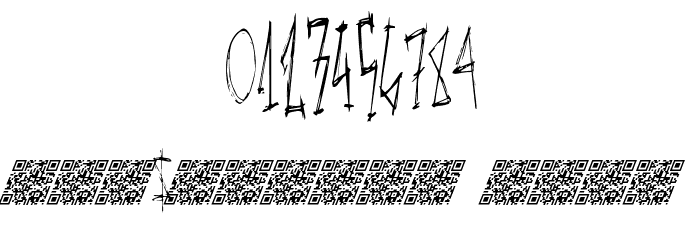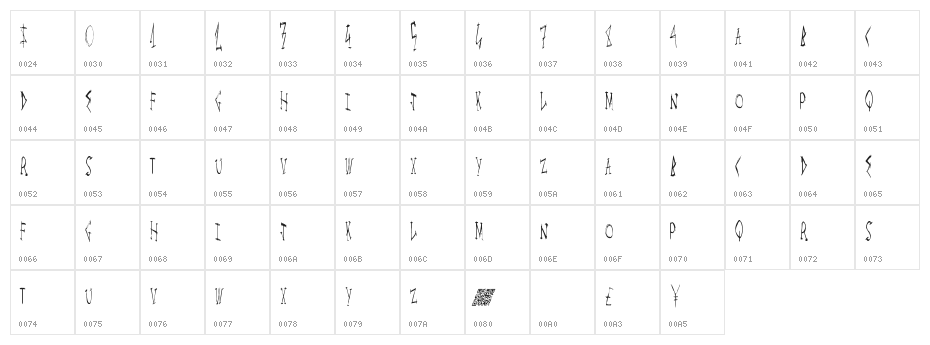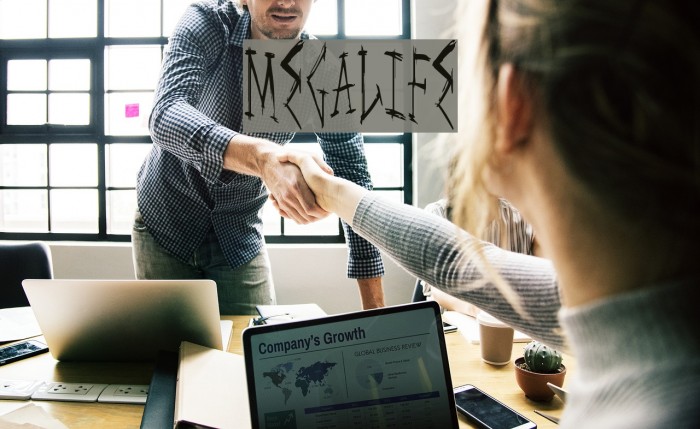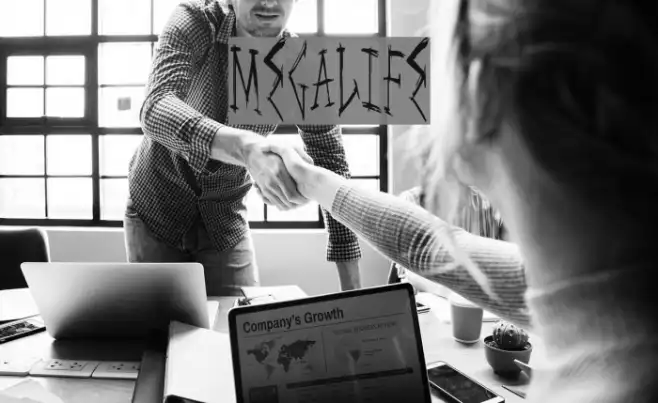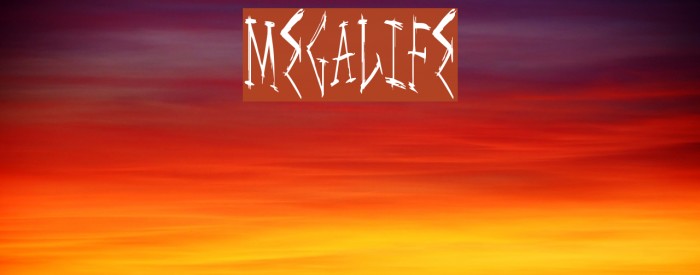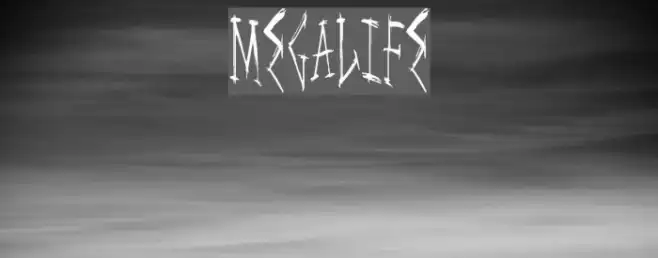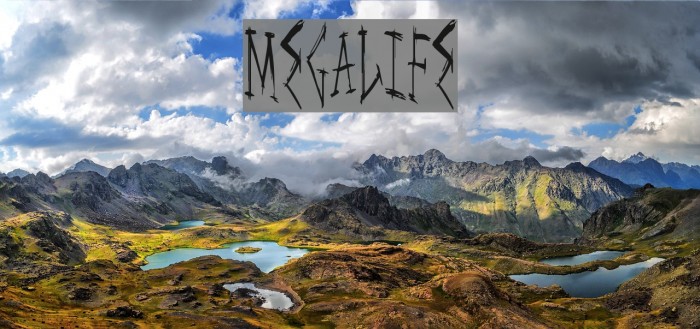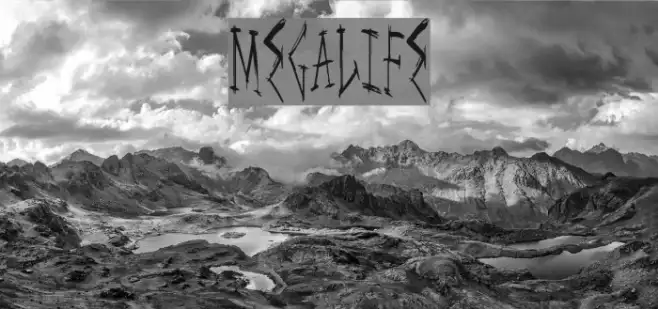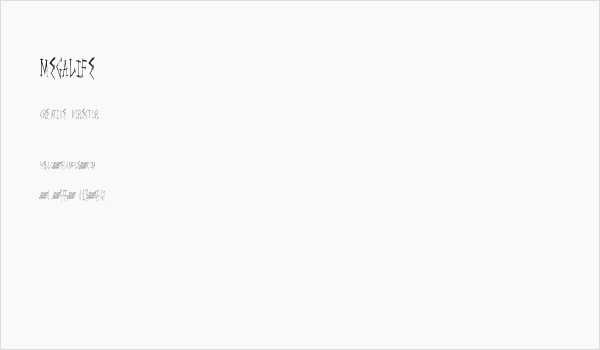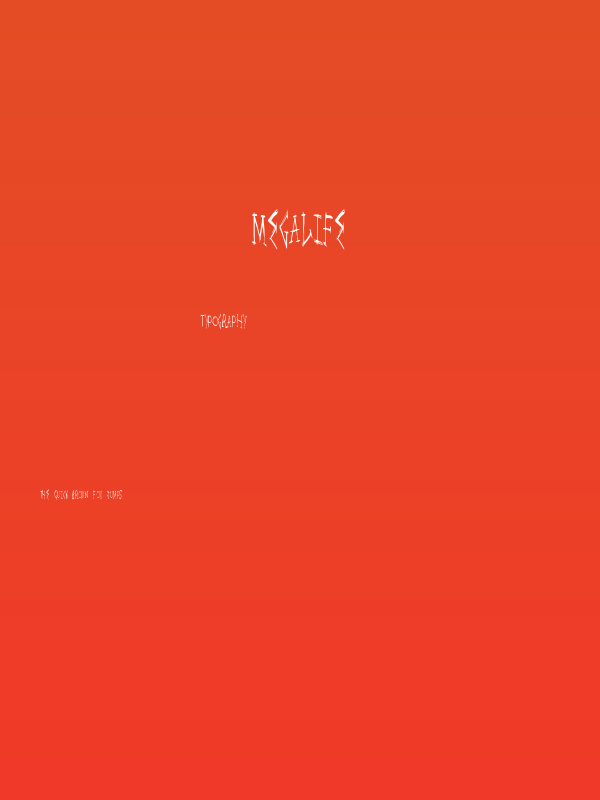
MegaLife Font
MegaLife Description
This font features a unique and edgy design with sharp, angular lines and a slightly chaotic appearance. The characters are constructed with a mix of thin and thick strokes, giving them a dynamic and energetic feel. The uppercase letters have a distinctive, almost tribal look, with exaggerated serifs and pointed edges. The lowercase letters maintain the same style, ensuring consistency throughout the typeface. Numbers and special characters are equally stylized, making this font suitable for creative and unconventional projects. The overall aesthetic is bold and eye-catching, perfect for making a statement.
| Proposed Projects | Ideal for album covers, posters, video game graphics, or any project needing a bold, unconventional typeface. |